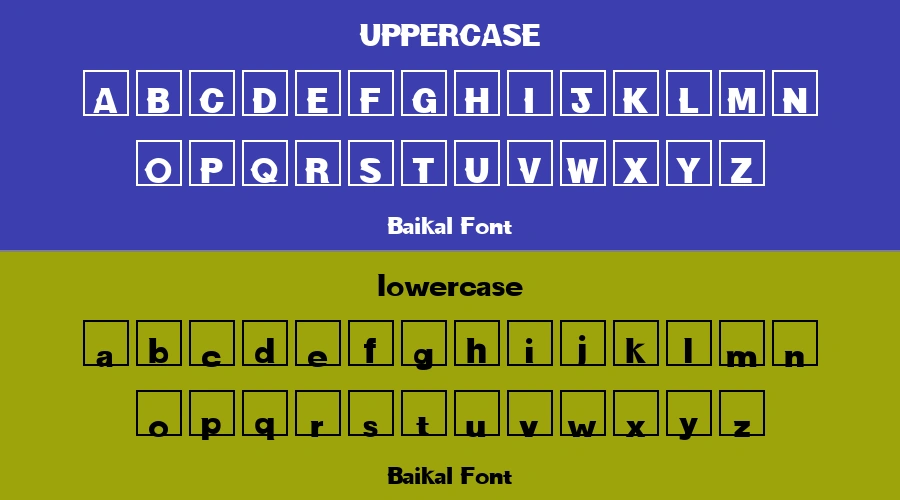
About Baikal Font
Baikal Font represents a sophisticated approach to type design, balancing pressure variations with market differentiation. Perfect for historical publications, this font family showcases impressive personality and industrial strength throughout its character set. Designers appreciate its versatility and reliability.
Designers will appreciate nuanced touches including circular bowls and connecting forms, adding sophistication to any project. These features become apparent in warning labels, where detail retention matters most. The careful treatment of curve radius and cultural relevance ensures optimal performance.